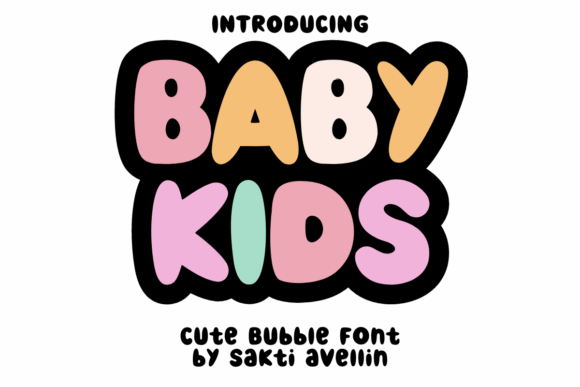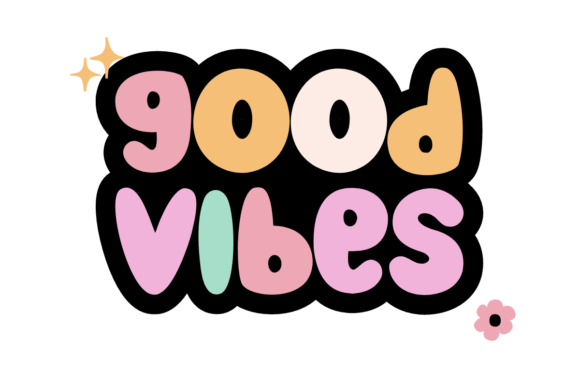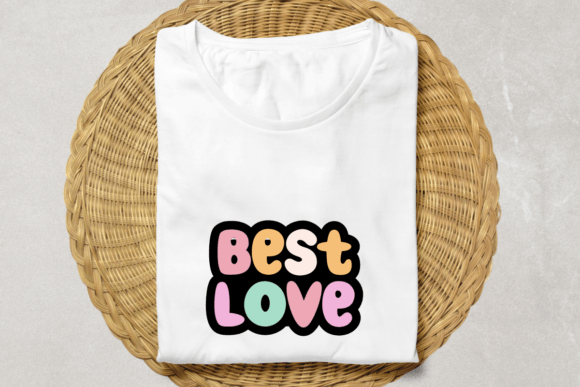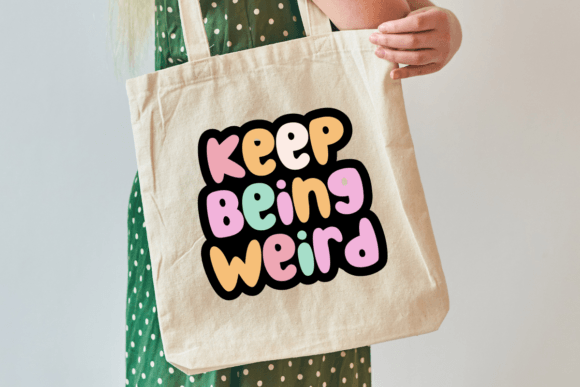
Baby Kids Font
About the Baby Kids Font
Meet Baby Kids Font, a stunning font that brings a touch of elegance and professionalism to any design. Baby Kids, a delightful bubble font that breathes life into your creations. Its charming character transforms ordinary crafts into charming pieces of art, infusing every quote with a splash of joy. From tote bags to t-shirts, Baby Kids adds a whimsical twist that instantly stands out. Celebrate birthday parties with a pop of personality or adorn your mugs and tumblers with layers of playful design. Explore the endless possibilities with the adorable Baby Kids font, guaranteed to make every moment more memorable.